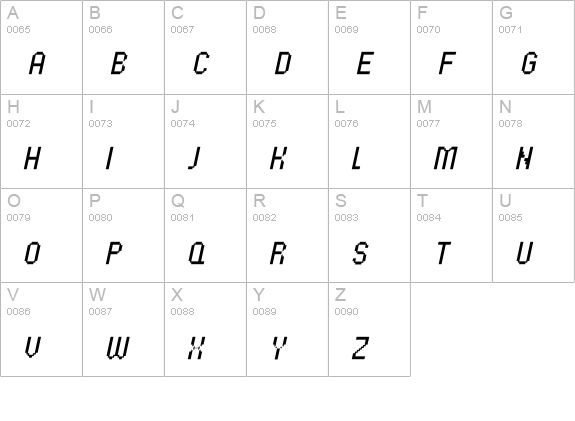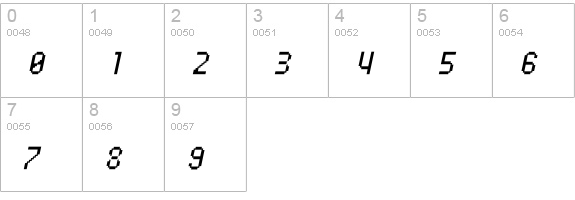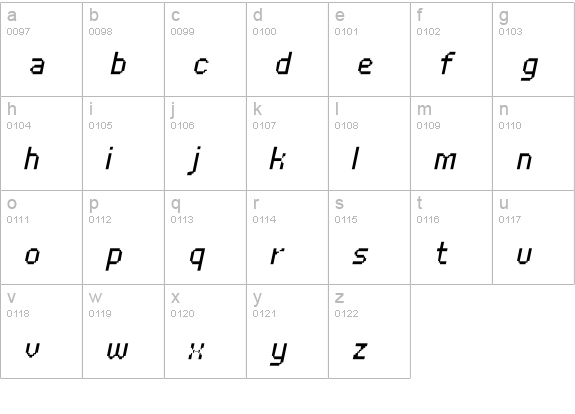
UNDA-BitmapFineItalic Font Details
UNDA-BitmapFineItalic is a unique and versatile font that combines the beauty of fine typography with the edginess of a bitmap design. Its italic style adds a touch of elegance and sophistication to any project, making it perfect for a wide range of applications. This font is meticulously crafted, with each character carefully designed to maintain legibility and visual appeal, even at smaller sizes. The fine details and intricate curves of UNDA-BitmapFineItalic make it stand out from other fonts, giving your designs a distinct and professional look. With its wide range of glyphs and special characters, UNDA-BitmapFineItalic offers endless creative possibilities. Whether you're designing a logo, creating a poster, or working on a digital project, this font has you covered. It seamlessly blends with various design styles and can be used to add a modern and contemporary touch to any project. The best part? UNDA-BitmapFineItalic is available for free! You can easily download this font at FontsMarket.com, a trusted source for high-quality fonts. It's compatible with both Mac and Windows operating systems, ensuring that everyone can enjoy its unique features. So why wait? Give your designs a fresh and stylish look with UNDA-BitmapFineItalic. Download it for free today at FontsMarket.com and unleash your creativity!